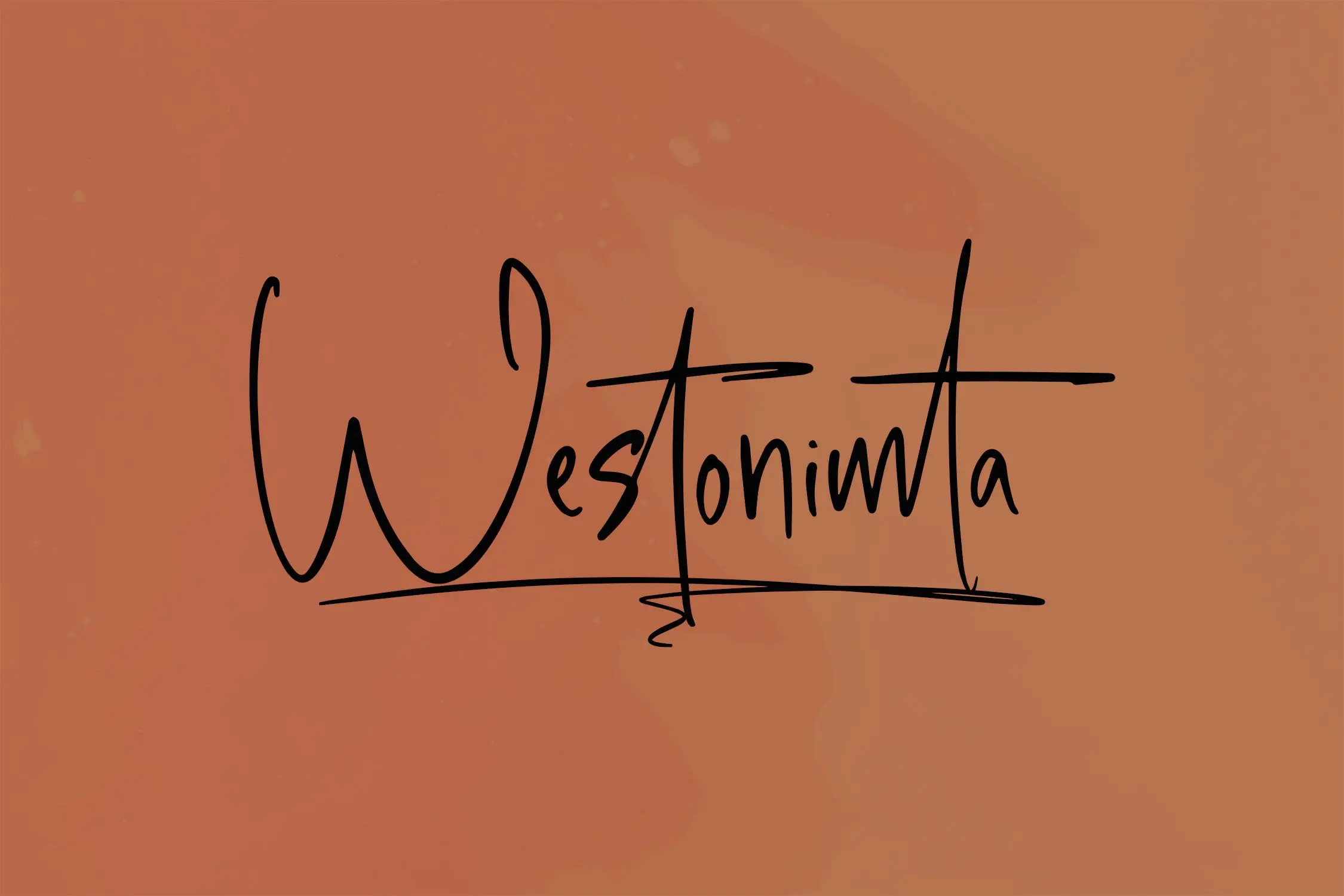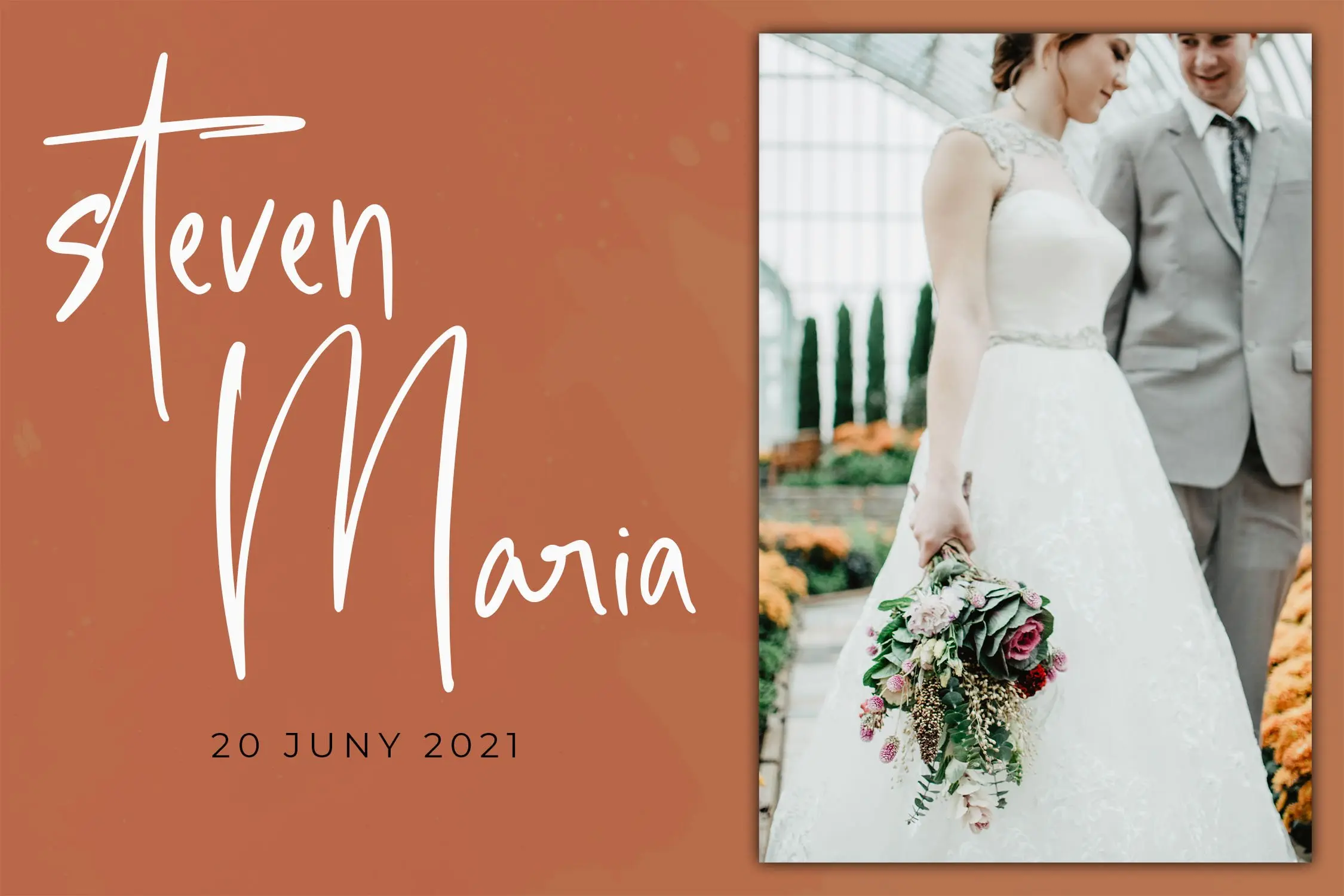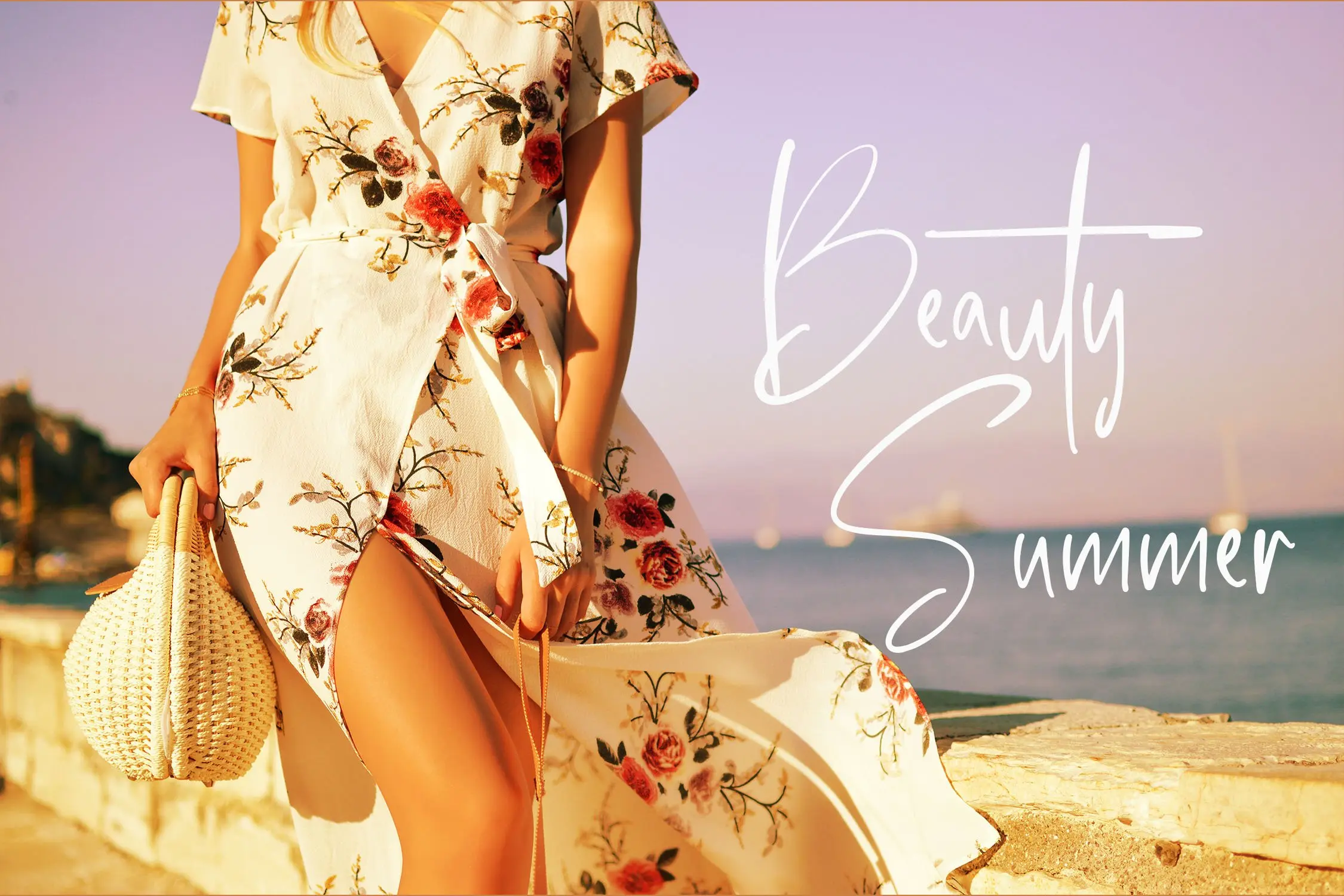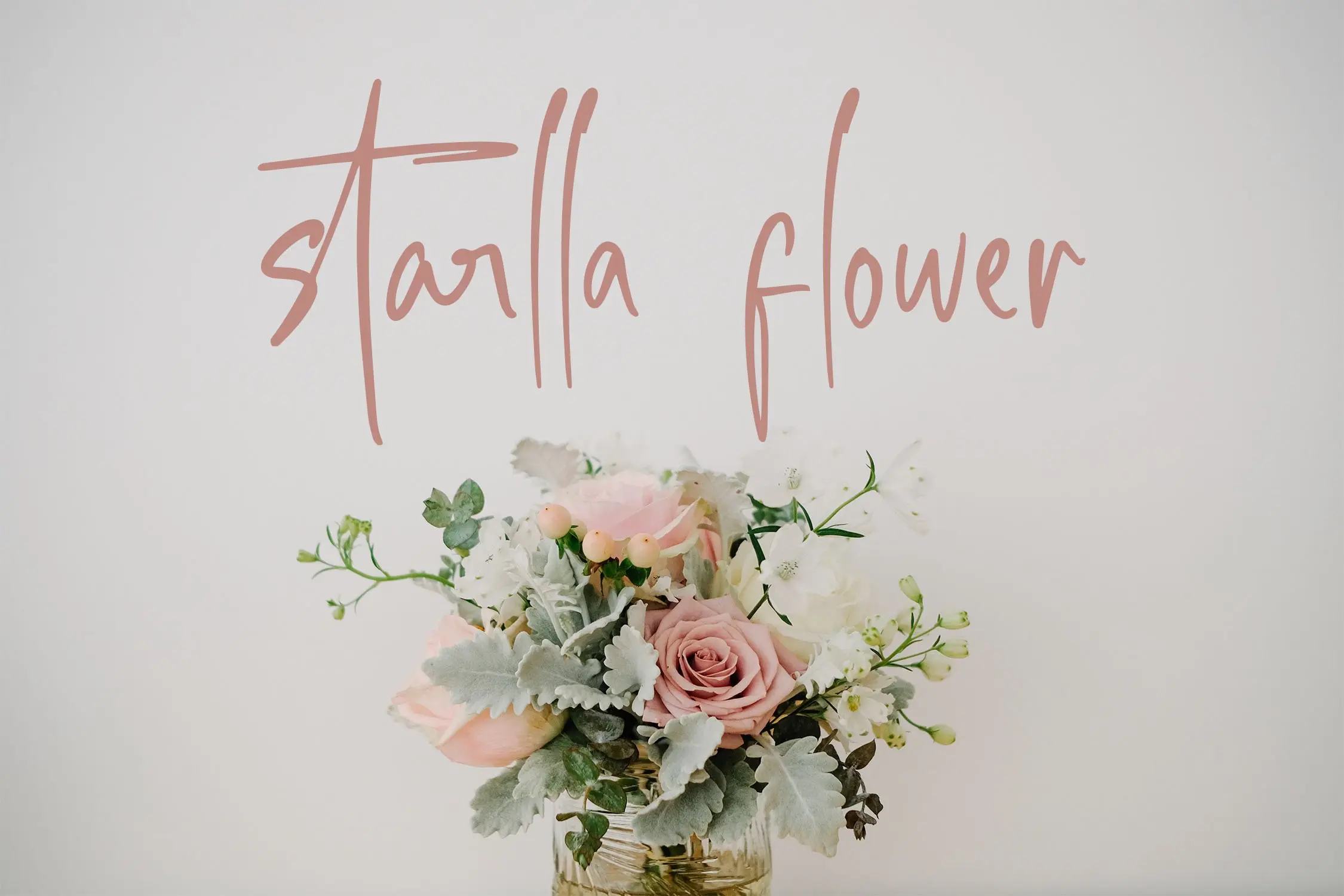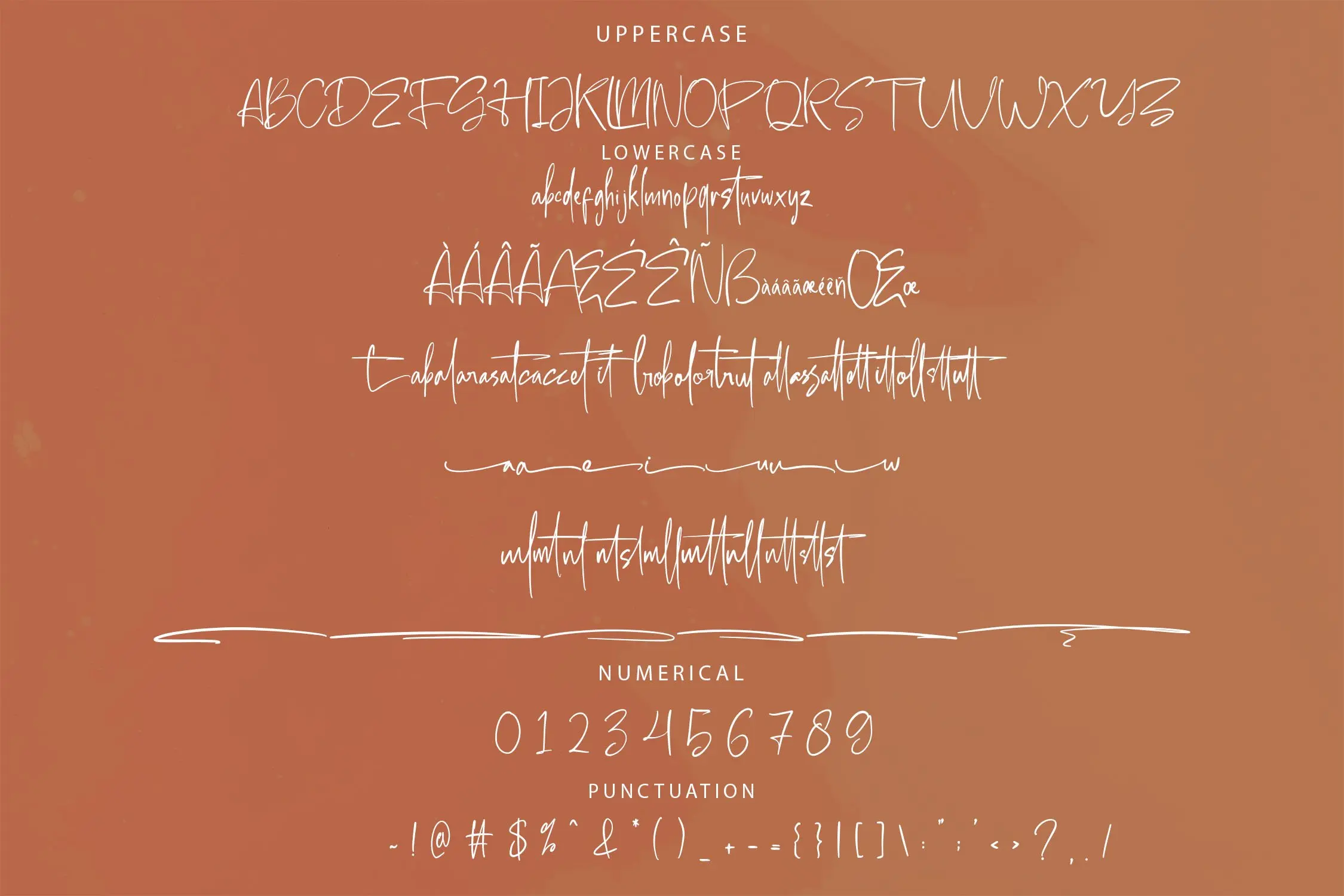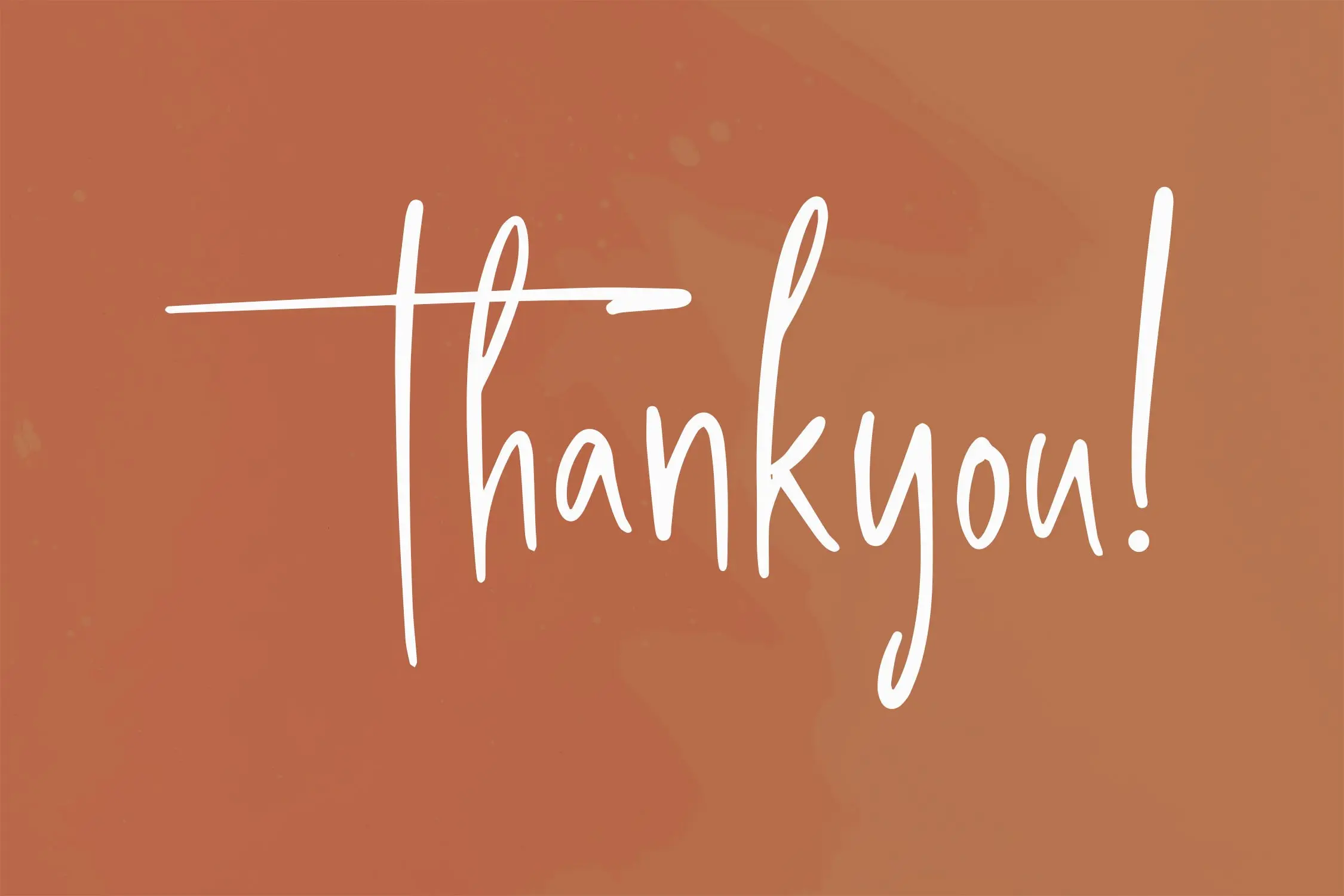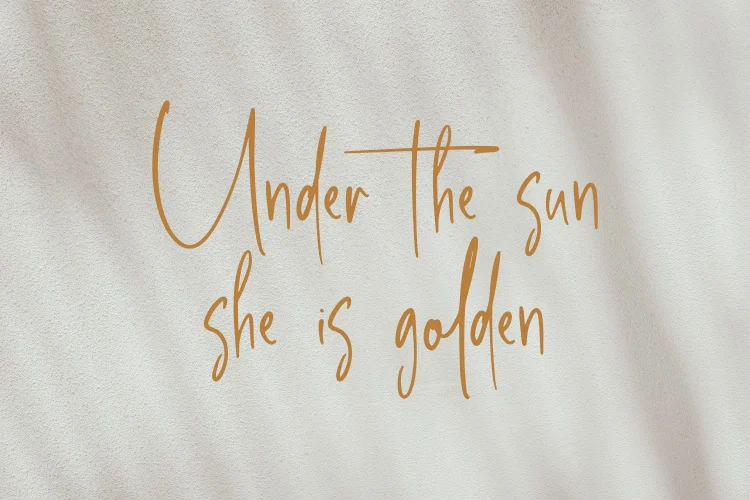
Westonimta is a modern handwriting font that combines sleek design with unique letter shapes, perfect for enhancing the visual appeal of your projects. This versatile font adds a uniqueness and stylish touch, making it ideal for branding, logos, product packaging, and social media posts. Regular updates ensure the font remains fresh and up-to-date with industry trends.
Key Features:
- Ligature support for seamless character connections
- Stylistic alternates and swashes for added flair
- Multilingual support for global use